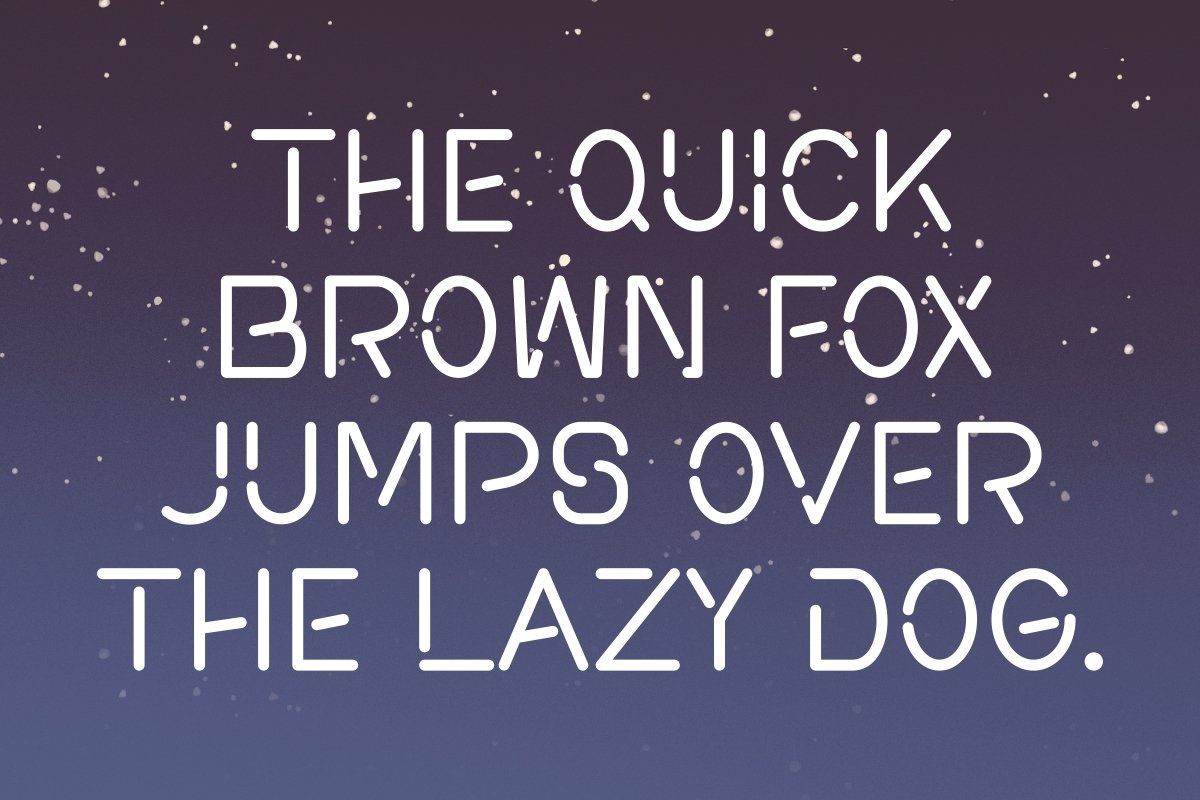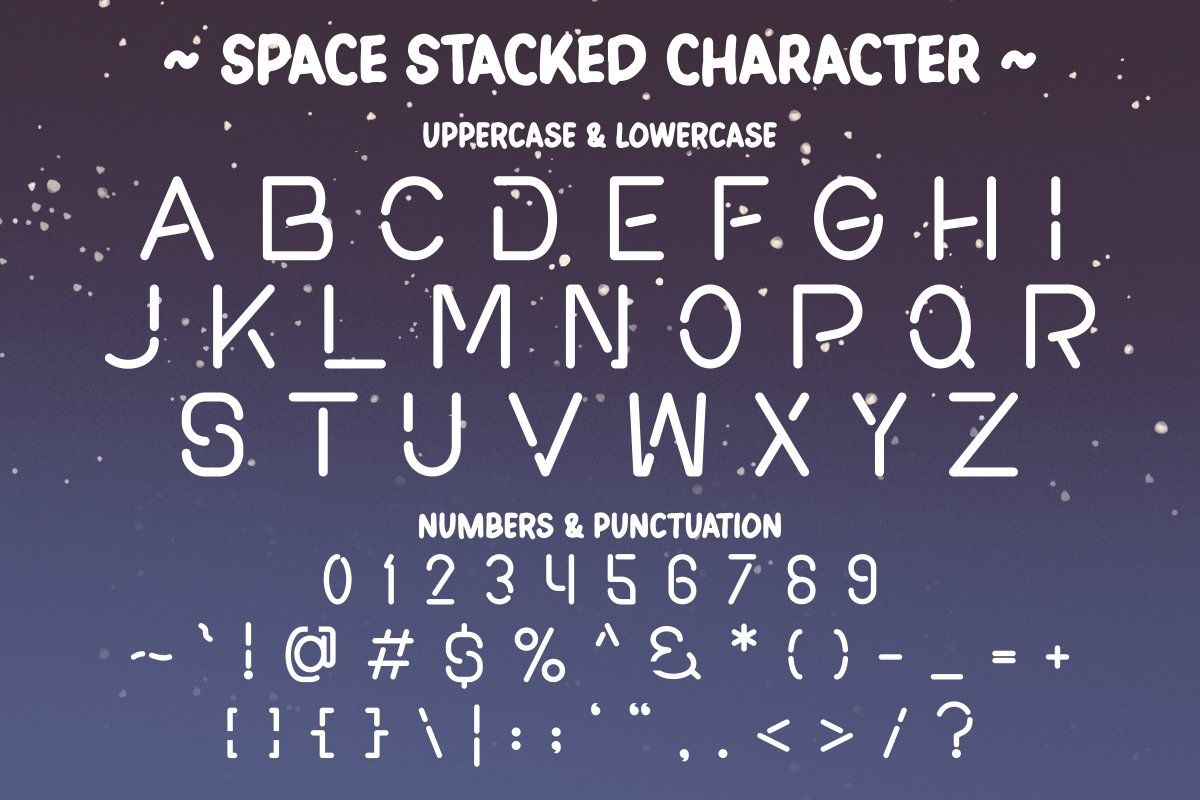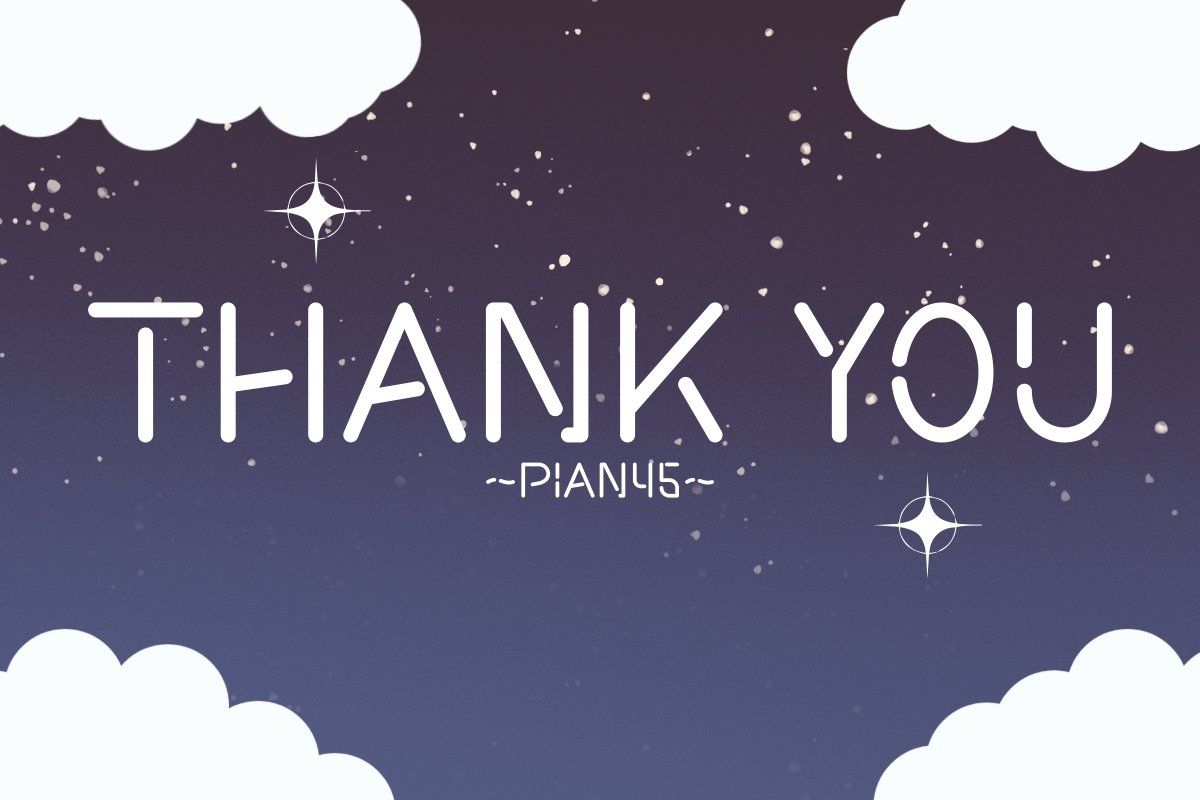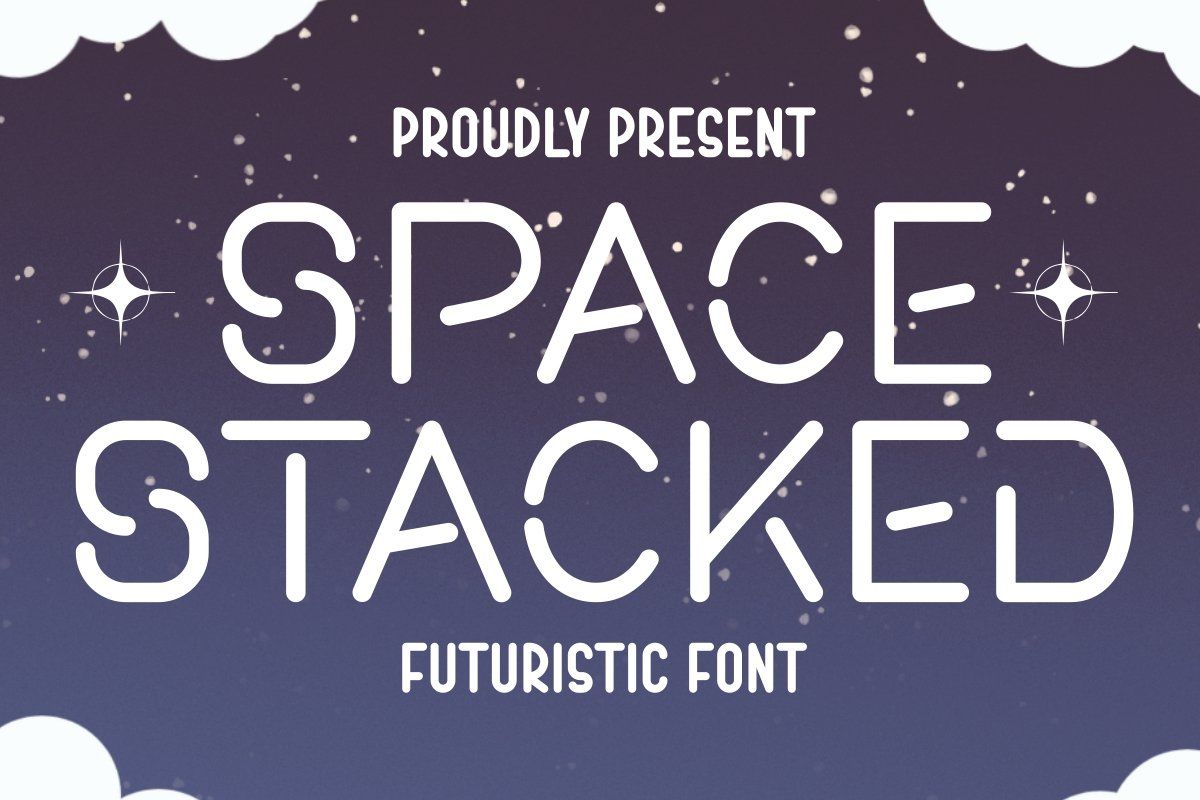
Space Stacked is a modernity stacked font with futuristic style. Space Stacked is perfect for creating sleek and trendy designs, from space-themed branding to futuristic digital interfaces.